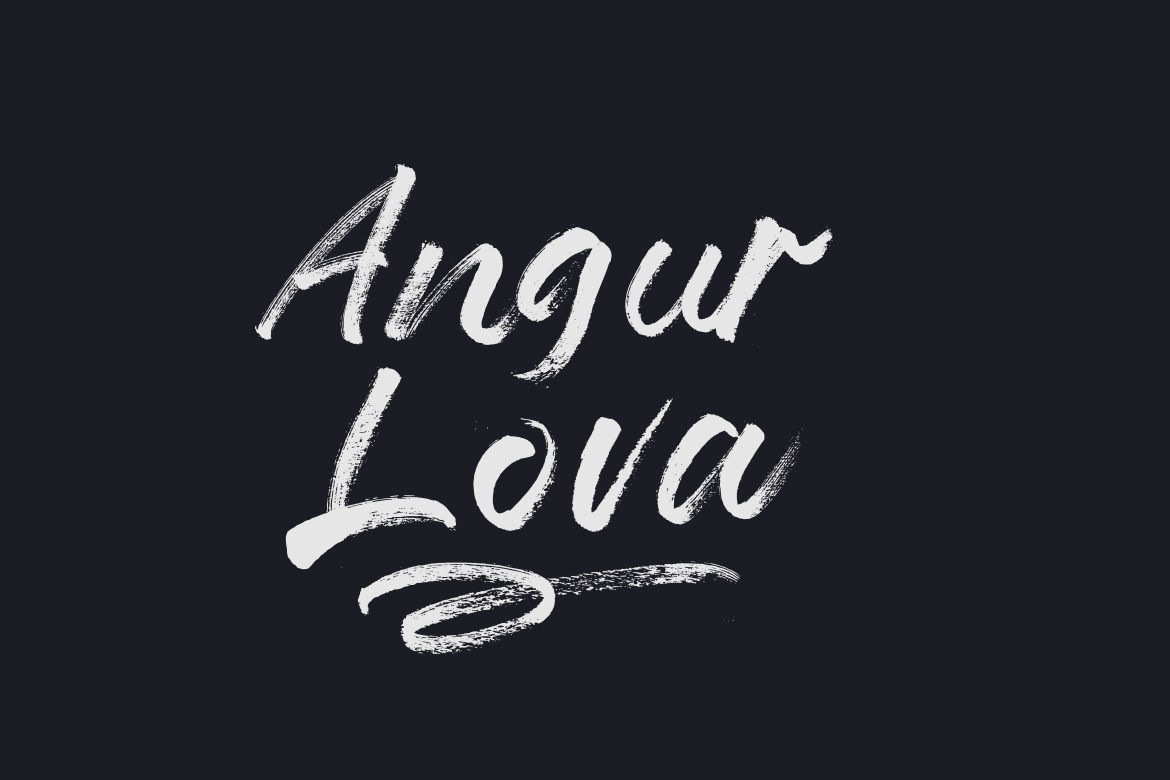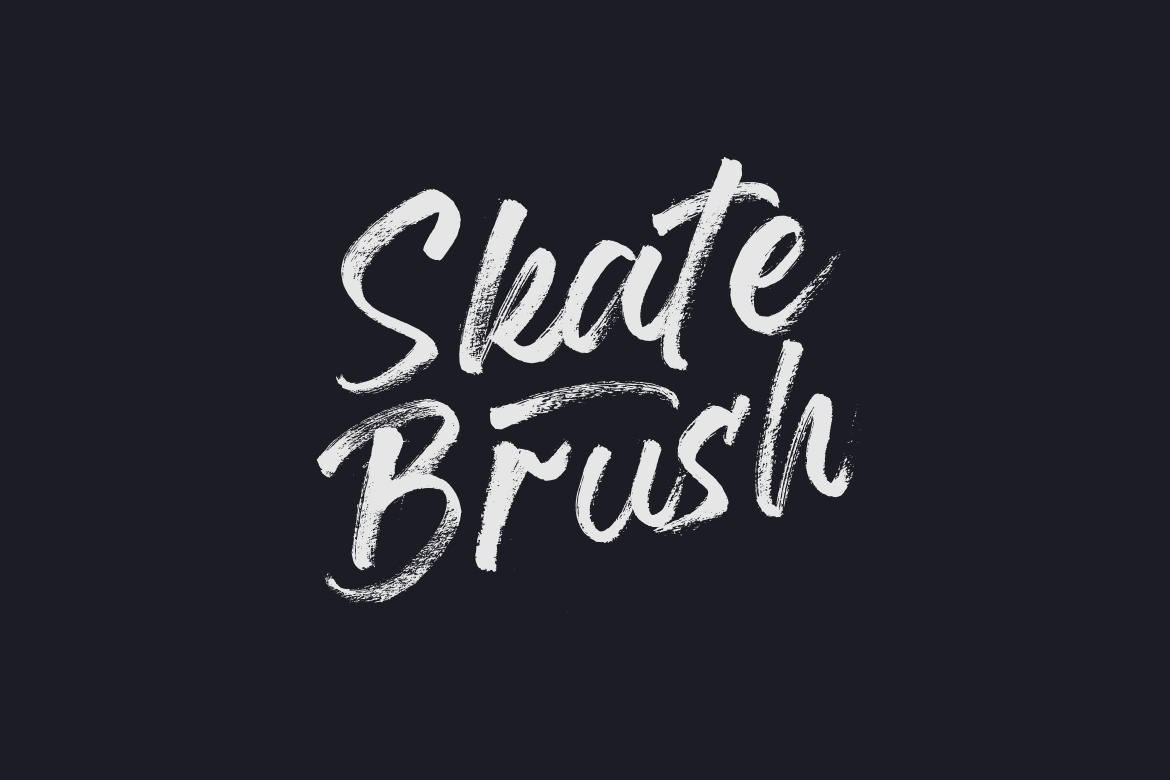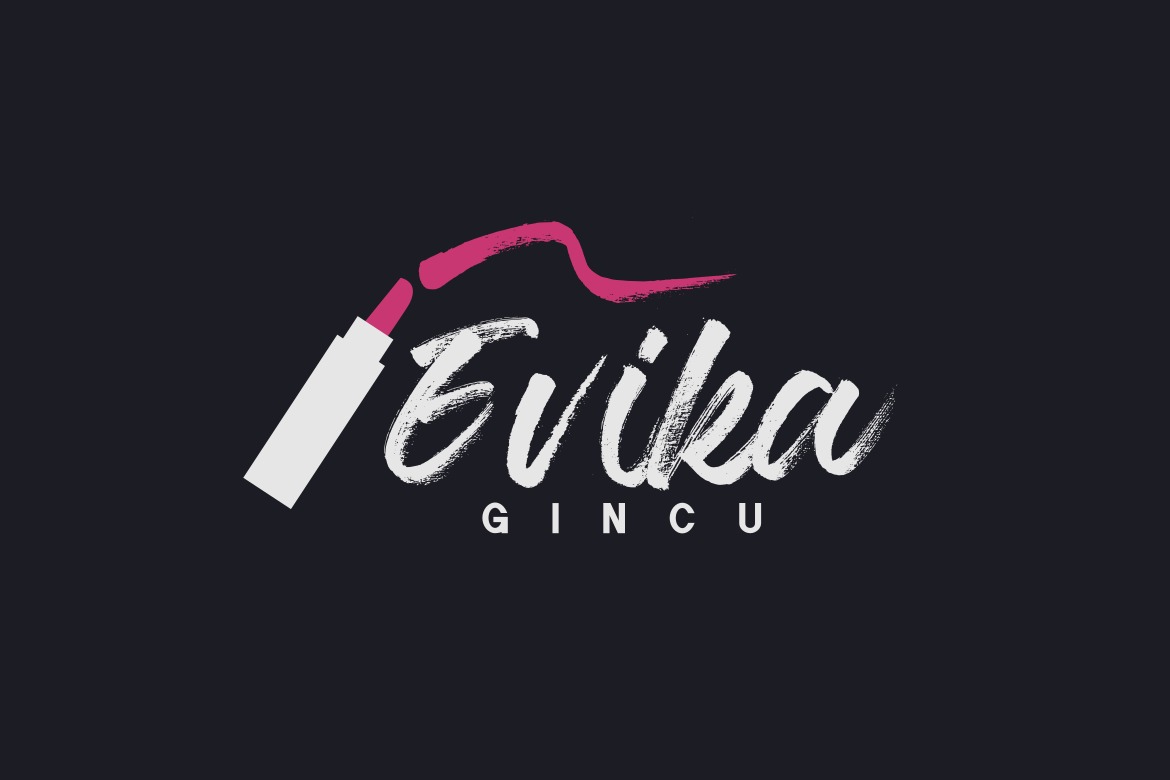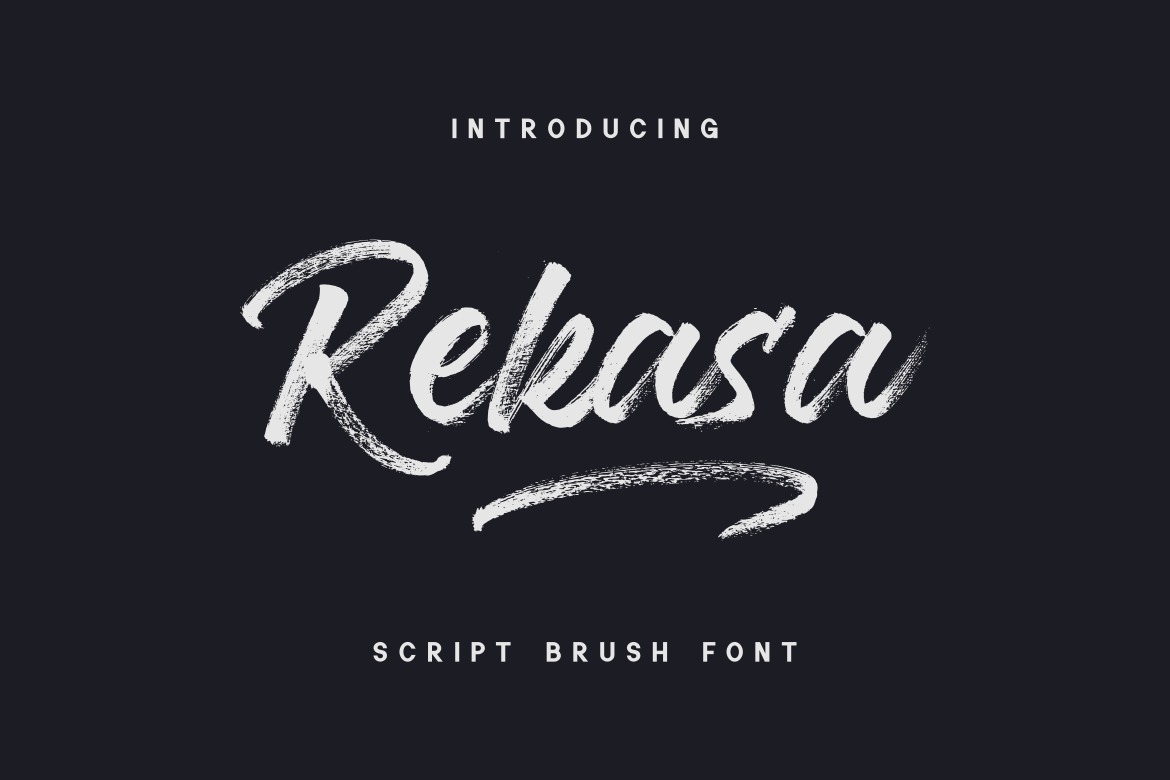
Rekasa Brush Font
It’s a decorative and playful brush typeface that radiates summer and positivity. This font is good for logo design, Social media, Movie Titles, Books Titles, a short text even a long text letter and good for your secondary text font with sans or serif. Make a stunning work with Better Cycles font.